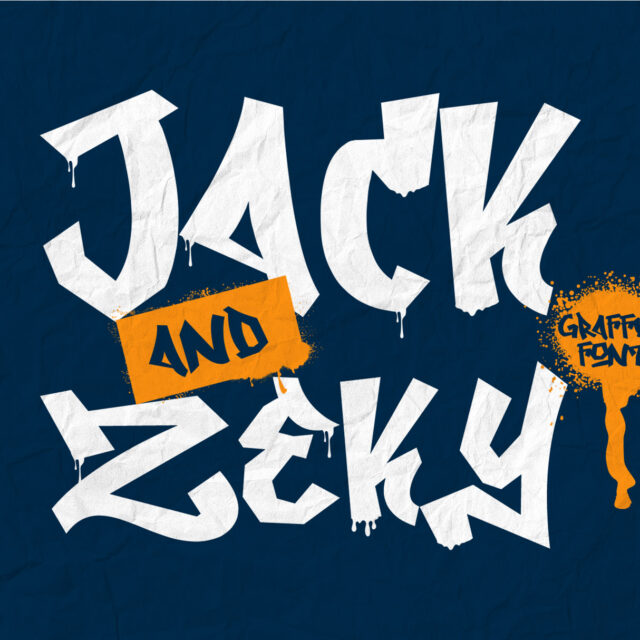
About Jack and Zeky
“Jack and Zeky” is a graffiti font characterized by sharp corners in its letterforms. Fonts with sharp corners often convey a sense of edginess and modernity, making them ideal for projects that require a bold and contemporary typographic style.
With its sharp corners, “Jack and Zeky” exudes a dynamic and urban vibe, making it well-suited for graffiti-inspired designs, street art, posters, and other projects where a bold and impactful font is desired. The sharp corners add a distinctive and eye-catching element to the typography, helping the text stand out and make a strong visual statement.